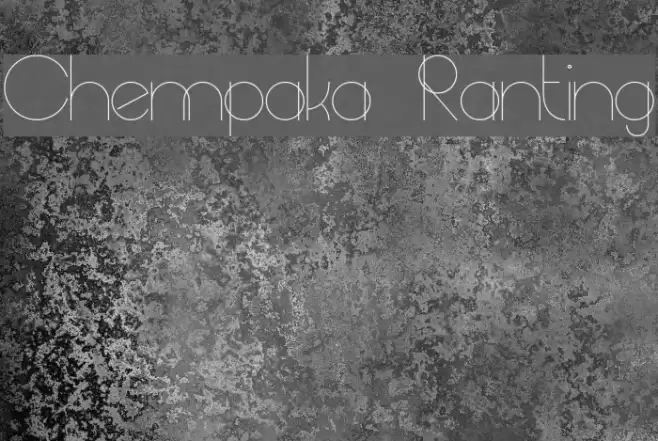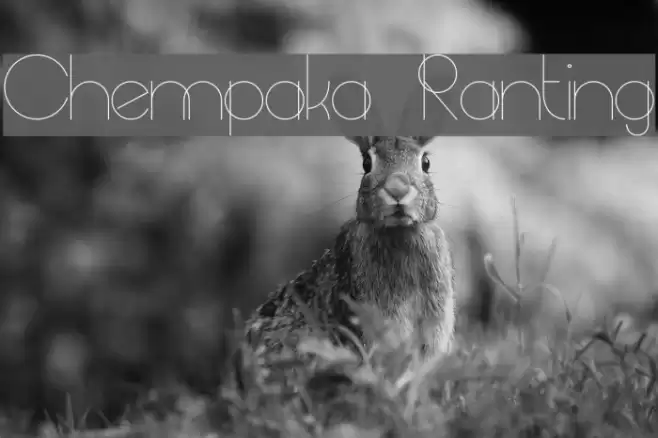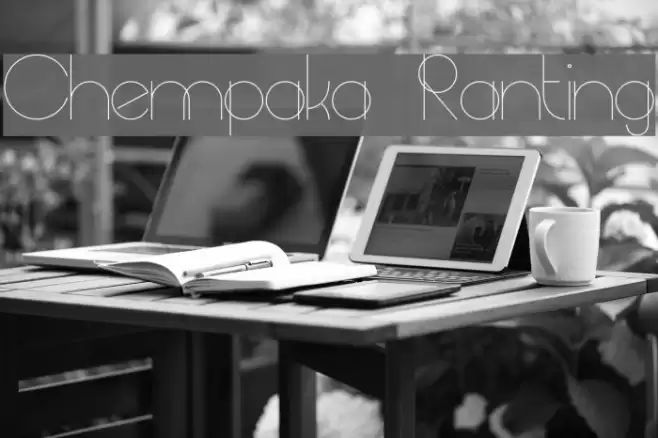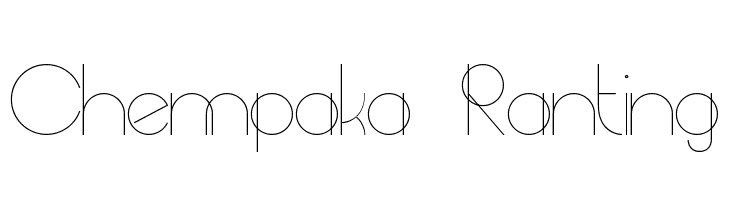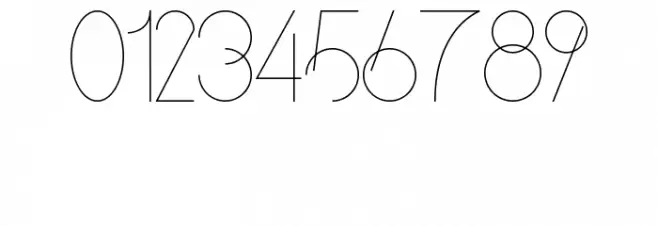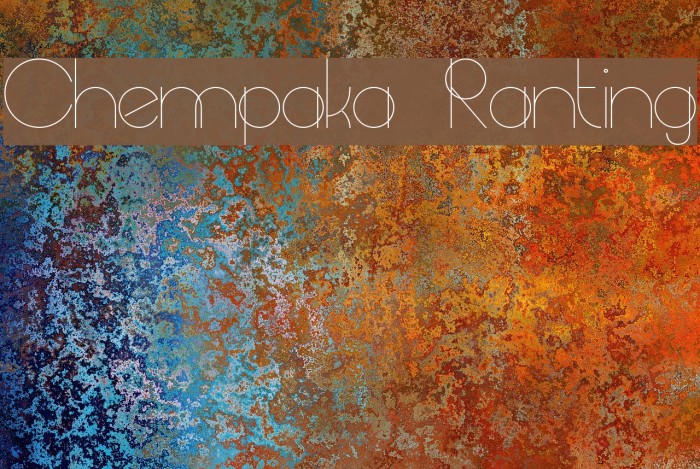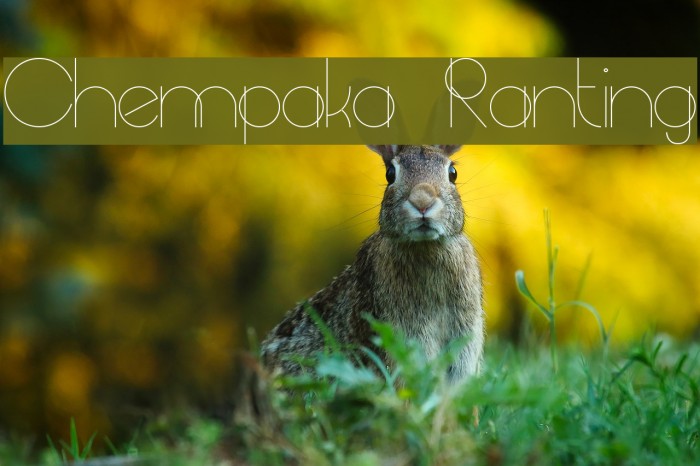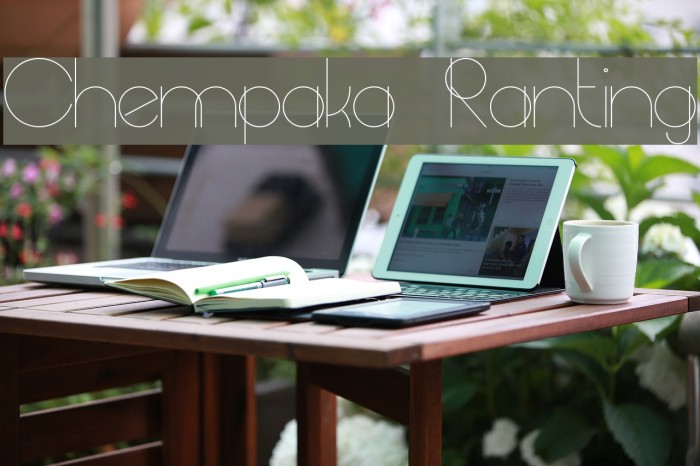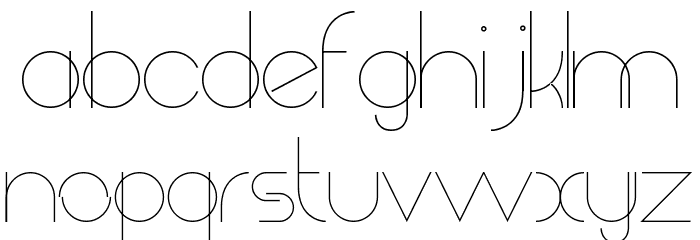
Chempaka Ranting Font
Chempaka Ranting Description
This font features a modern and minimalist design with thin, elongated strokes and a geometric structure. The characters are crafted with a unique blend of curves and straight lines, creating a sleek and sophisticated appearance. The uppercase letters exhibit a uniform height, while the lowercase letters maintain a consistent baseline, contributing to a harmonious visual flow. The numerals are designed with a similar aesthetic, ensuring cohesion across all elements. The special characters are seamlessly integrated, maintaining the font's overall elegance and style.
A modern, minimalist font with thin, elongated strokes and geometric structure from Uncategorized fonts.
- Proposed Projects: Ideal for modern branding, minimalist posters, sleek packaging designs, and contemporary digital interfaces.
- Weight: Light
- Use Case: Logos, Headlines, Digital interfaces